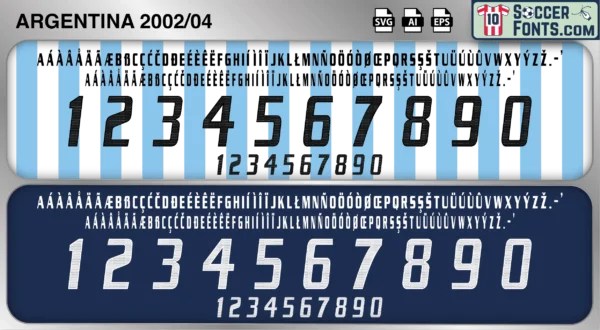
Argentina 2002-04 Font
The Argentina 2002-04 font is an editable soccer jersey lettering design in vector format inspired by the Argentina kit style used during the 2002-04 football seasons. This football font artwork is prepared for football shirt recreations, custom jersey projects, football kit mockups and sports graphic design workflows.
The 2002-04 period followed one of the most disappointing FIFA World Cup campaigns in Argentina’s history despite entering the 2002 tournament as one of the favorites. After an early group-stage exit in South Korea and Japan, the national team began rebuilding around a mixture of experienced players and emerging talents. During this era, Argentina featured footballers such as Juan Román Riquelme, Javier Zanetti, Pablo Aimar, Hernán Crespo, Gabriel Batistuta and Javier Saviola while continuing to develop one of the deepest talent pools in world football. The national team remained highly competitive in South American competition and friendly tournaments while preparing for future Copa América and World Cup campaigns.
The Argentina 2002-04 font became associated with a transitional period between generations and the emergence of several players who would define Argentine football throughout the decade. Argentina shirts from this era remain popular among football shirt collectors because of their connection with classic Albiceleste football culture, iconic sky-blue-and-white kits and the technical style of play associated with Argentine football. The Argentina 2002-04 font reflects an important chapter in the national team’s history as Argentina worked to recover from World Cup disappointment while maintaining its reputation as one of international football’s most influential and respected nations.